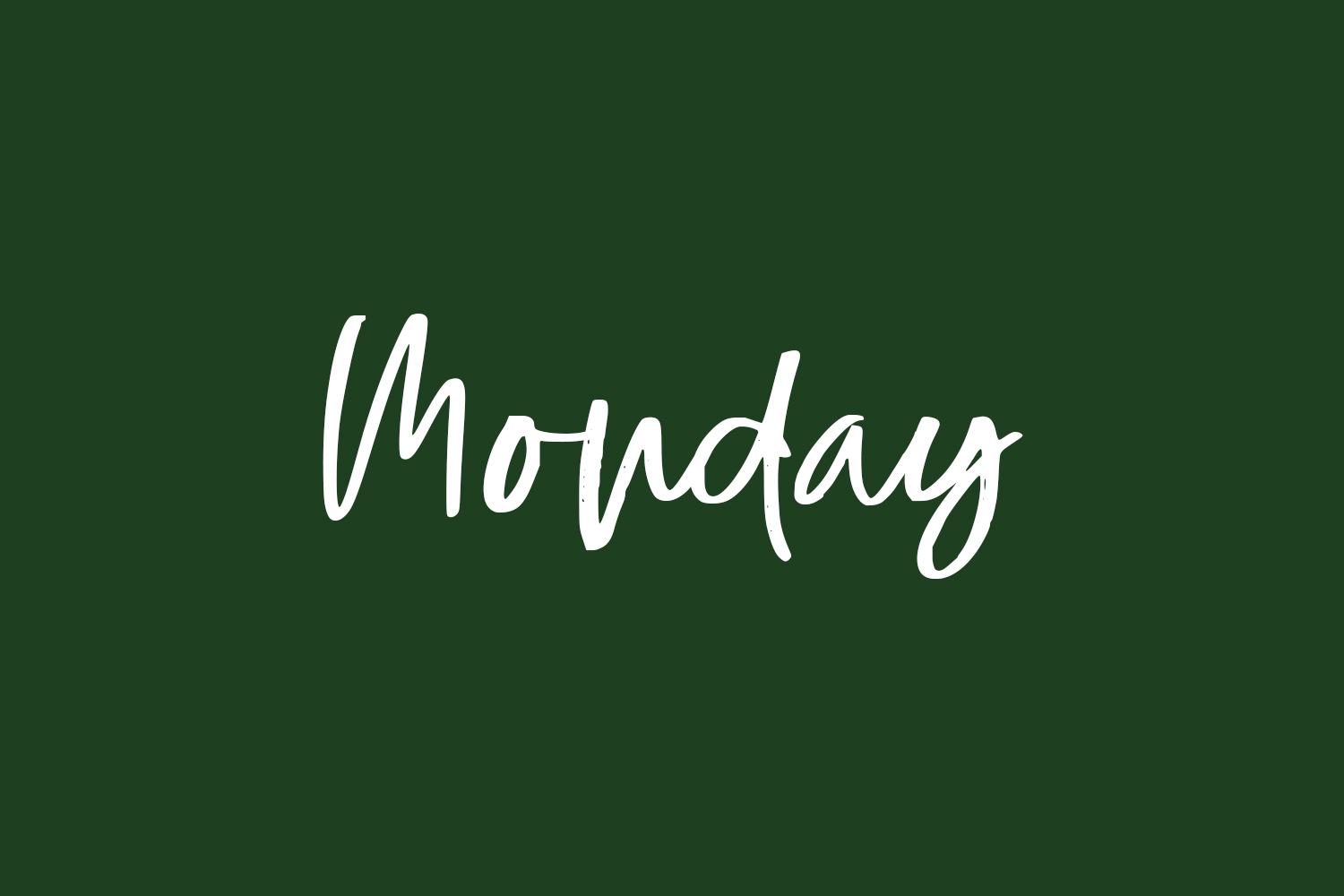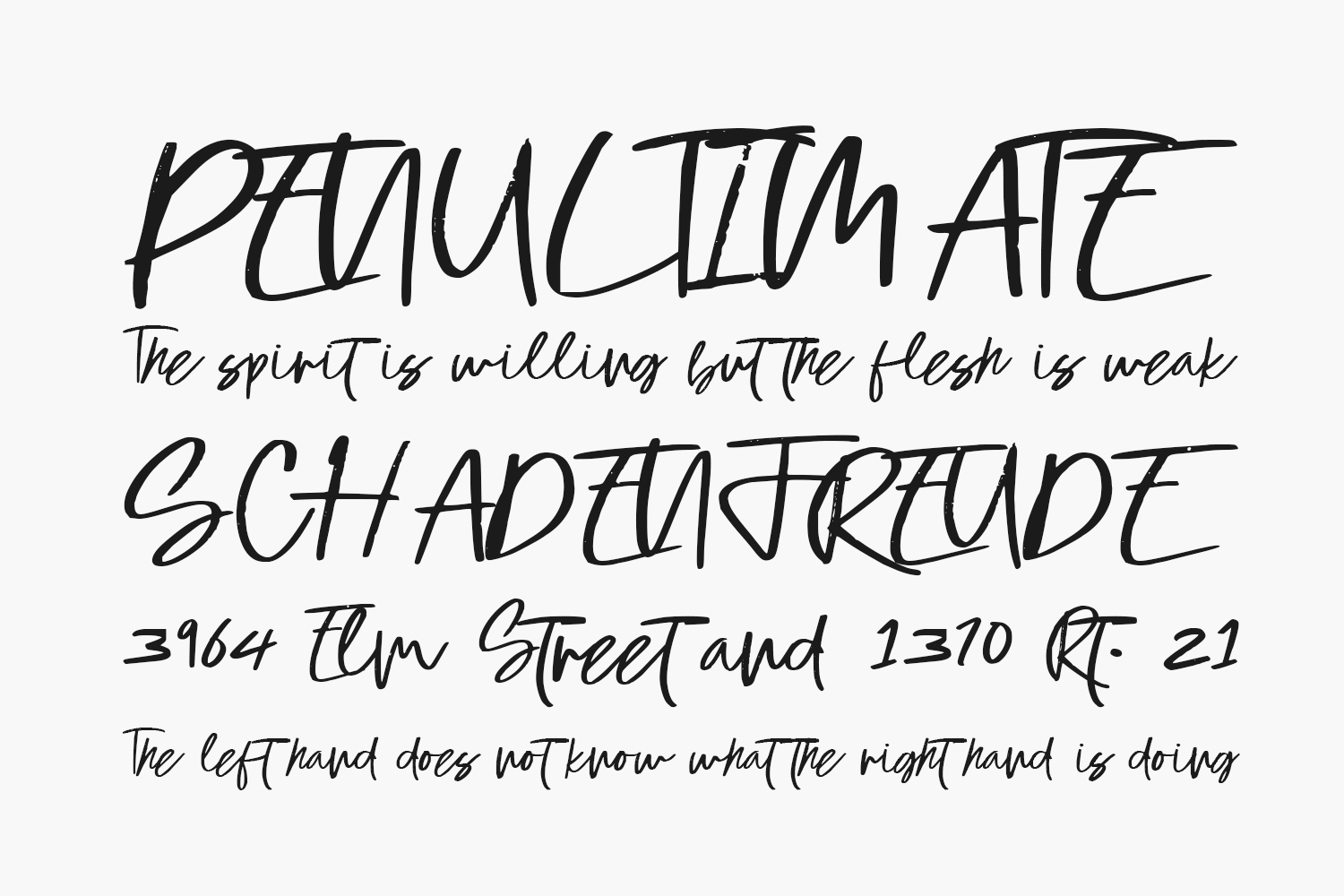
Monday Free Font is a modern calligraphy font with handwriting, and a captivating flow. It’s perfect for wedding invitations, and cards. Monday Free Font includes a full set of beautiful uppercase and lowercase letters, which will be perfect for all kinds of your printing techniques such as embroidery, laser cut, gold foil, etc. Monday Free Font was designed by Era Type and is free for personal use only. Please purchase the full version for commercial use.